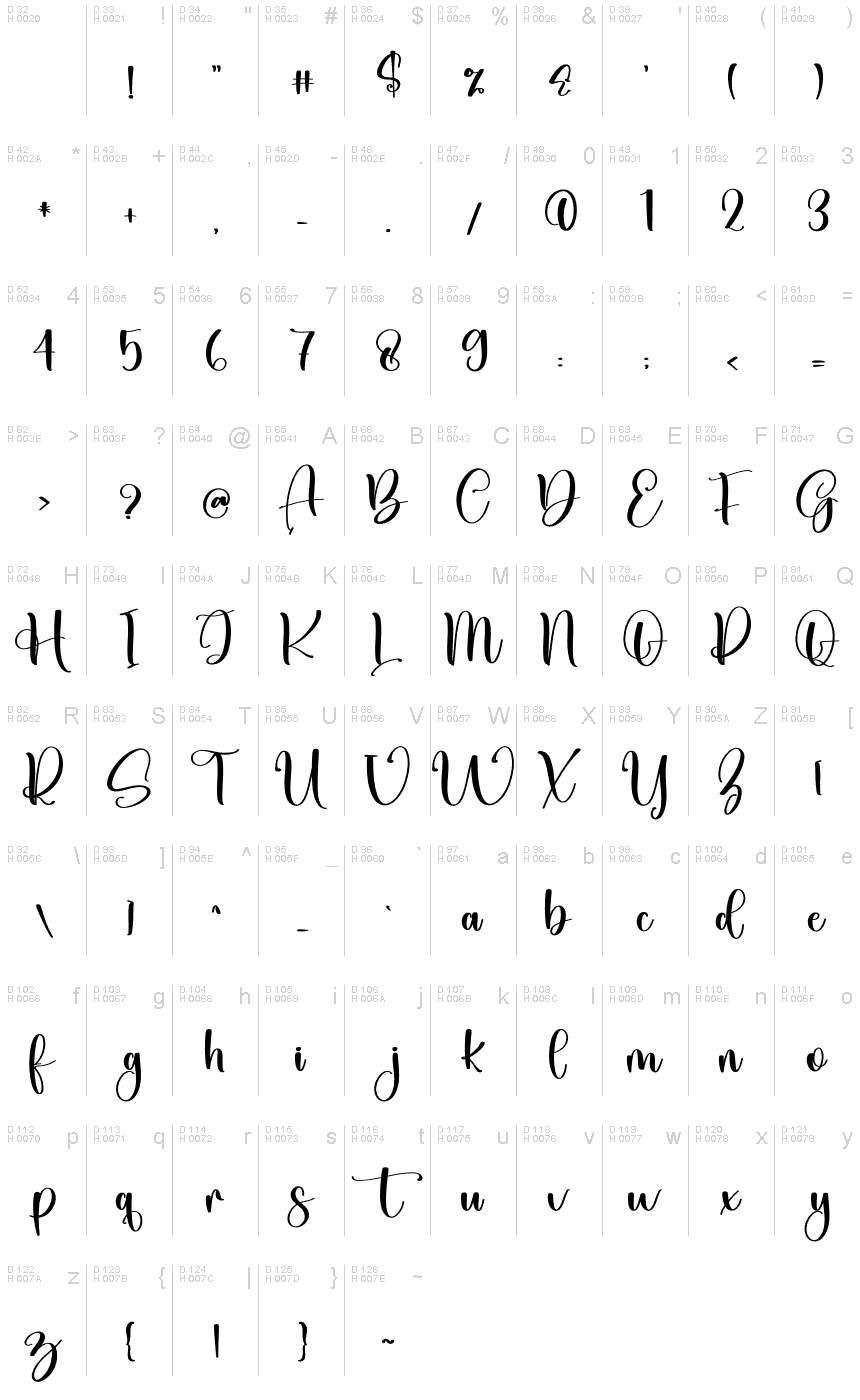
Dolles
Dolles, crafted by Inermedia Studio, is a handwritten font that exudes a semi-light aesthetic, striking the perfect balance between elegance and readability. Its fluid strokes and gentle curves convey a sense of personal touch and warmth, reminiscent of classic calligraphy with a modern twist. The Dolles font's inviting character makes it ideal for designs seeking to add a humanistic and approachable feel.
With its distinct style, Dolles is versatile enough for an array of creative projects. Whether it's anchoring the visual identity of a brand, gracing the pages of editorial content, or adding a personal note to invitations and greeting cards, this font's charm enhances the message it carries. The semi-light weight ensures that it remains legible while maintaining an airy presence on the page.
Embrace the artistic flair of Dolles for your next project to capture attention with its stylish allure while delivering clarity in every swooping line.